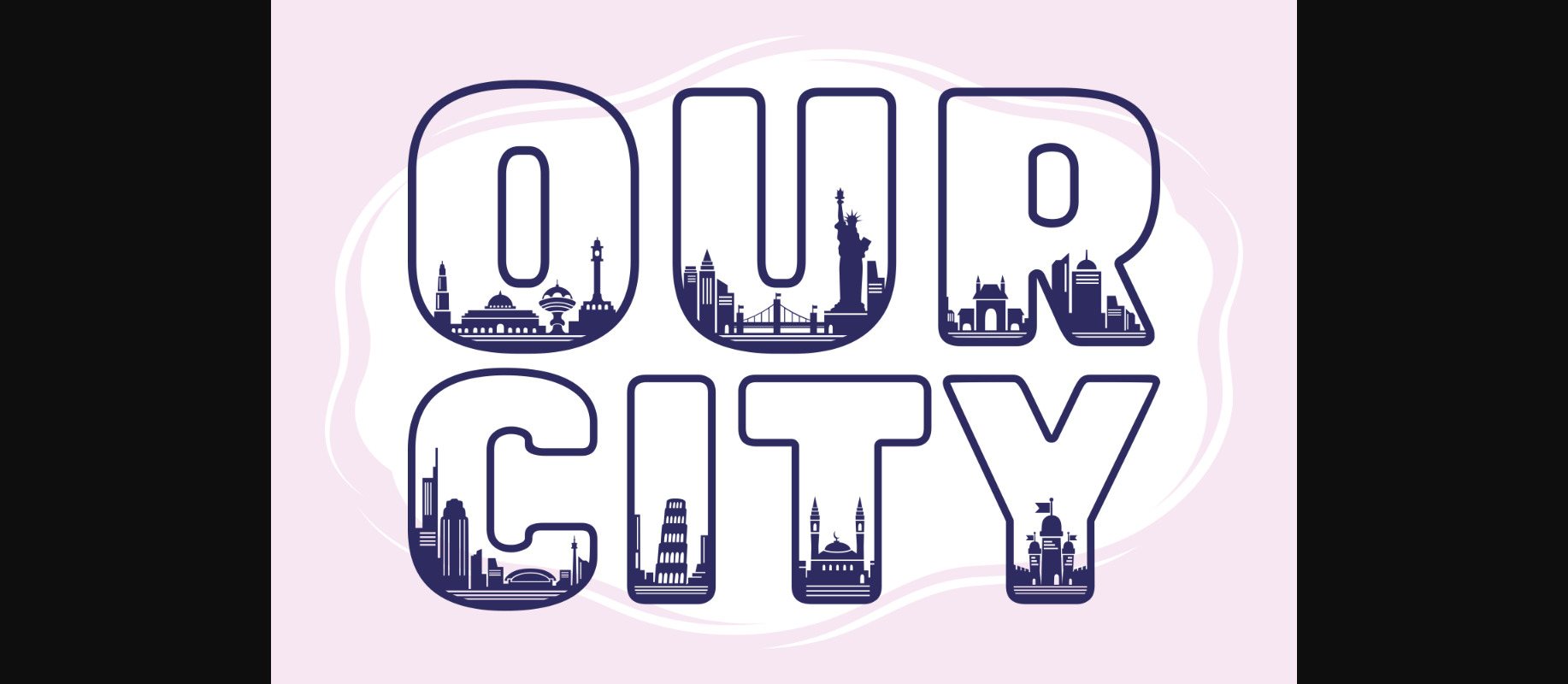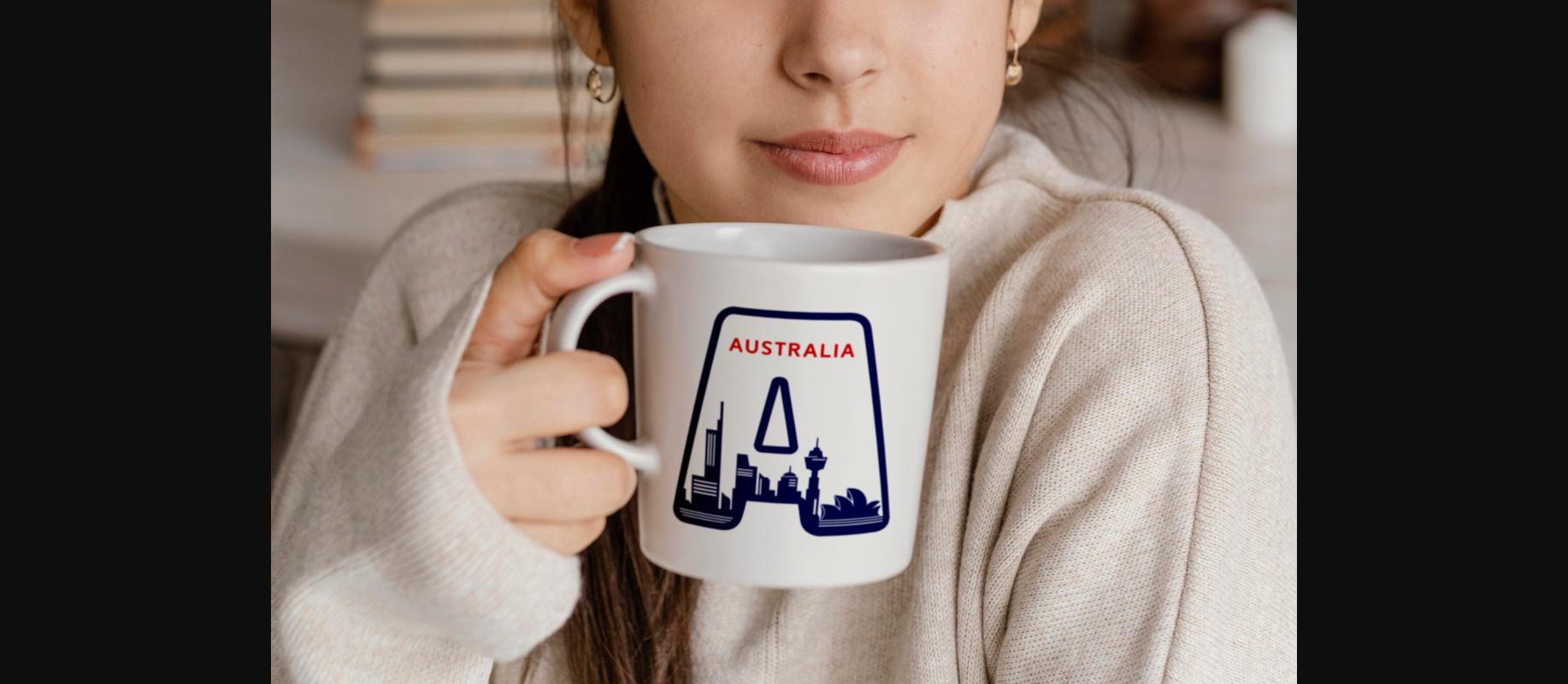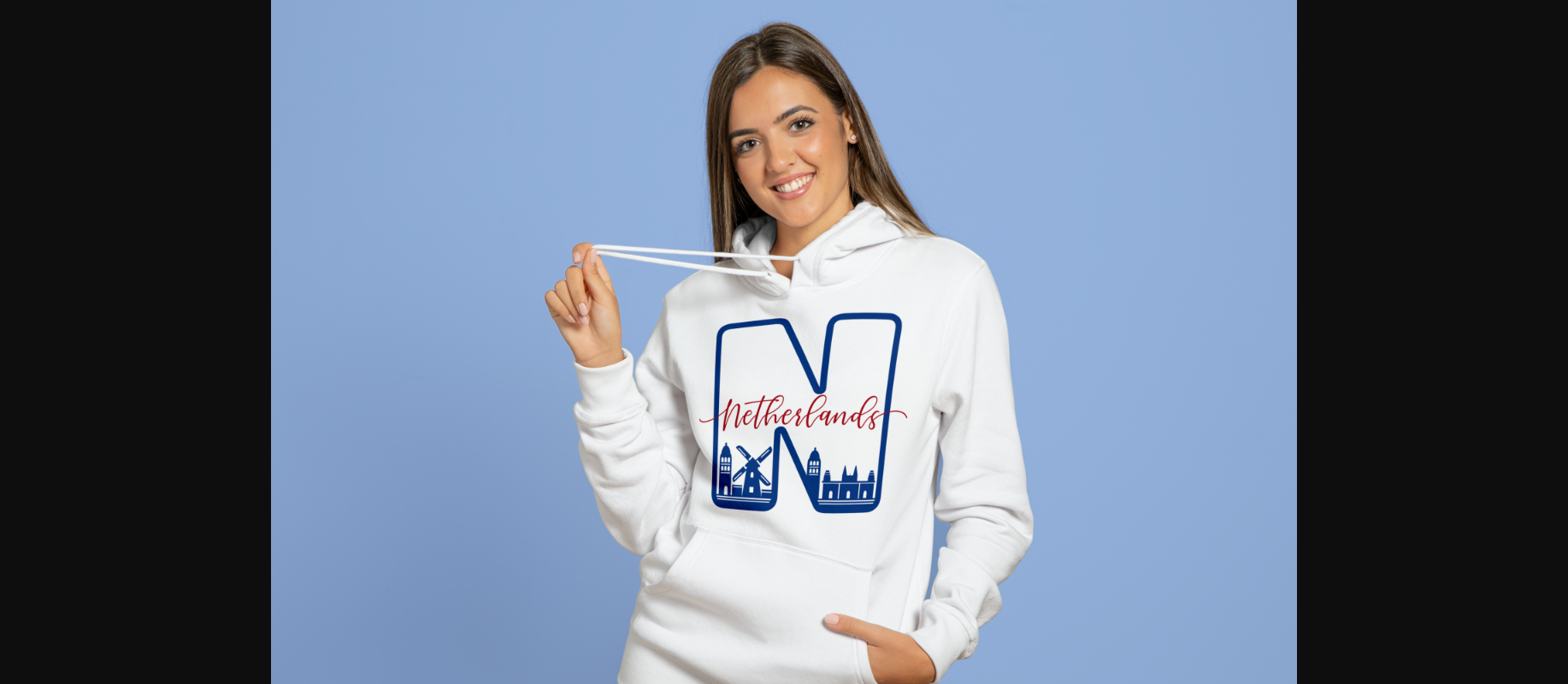
About Our City Font
Our City is a unique decorative font, in which each letter represents a famous city skyline in various countries. Use each letter individually to print creative designs on mugs and t-shirts!